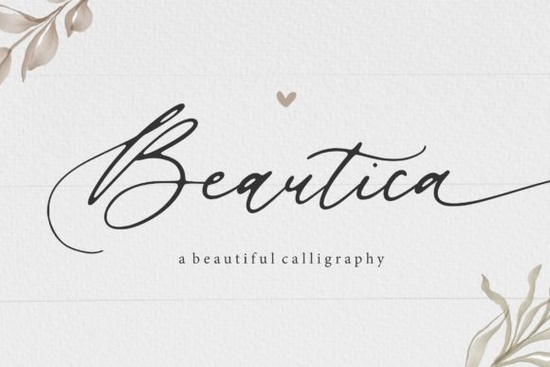
Designers, crafters, and small business owners often look for fonts that add a personal touch to their work. The Beautica Beautiful Calligraphy Font is one such typeface that stands out for its elegant, flowing style. Whether you're creating wedding invitations, custom T-shirts, or social media graphics, this font can bring a sense of sophistication to your projects. Its handwritten feel makes it ideal for anything that needs a warm, artistic vibe.
If you're searching for a script font that feels both modern and timeless, Beautica could be the perfect fit. It’s designed with a natural, fluid look that mimics real handwriting, making it easy to read while still maintaining an artistic flair. This versatility means it works well in both digital and print formats, giving you more options for how you use it.
Why choose a calligraphy font like Beautica?
Calligraphy fonts are popular because they add a human element to design. Unlike standard sans-serif or serif fonts, they can make text feel more personal and expressive. Beautica is especially good at this its curves and lines flow smoothly, giving your designs a handcrafted appearance. This is great for brands that want to communicate warmth, creativity, or authenticity.
For those who work with other script fonts, like Smile Font, Chalk Font, or Preppy Writing Font, Beautica offers a different but complementary style. It’s less playful than some options and more refined, making it suitable for a wider range of projects.
How to use Beautica in your creative projects
There are many ways to incorporate Beautica into your work. For example, if you're designing a logo, using this font can give it a unique, artistic edge. It also works well for headings, banners, and quotes. Because it’s a calligraphy font, it pairs nicely with other styles try combining it with a clean sans-serif for contrast.
Print-on-demand sellers might find Beautica useful for creating custom designs for t-shirts, mugs, or phone cases. Its readability ensures that even small text remains clear, which is important for products that need to be legible at a glance. You can also use it for social media posts, where a stylish font can help your content stand out.
Consider adding Beautica to your collection if you're looking for a versatile, elegant calligraphy font. It’s a simple yet powerful tool that can elevate your designs without overwhelming them. Whether you're a professional designer or a hobbyist, this font is worth exploring.